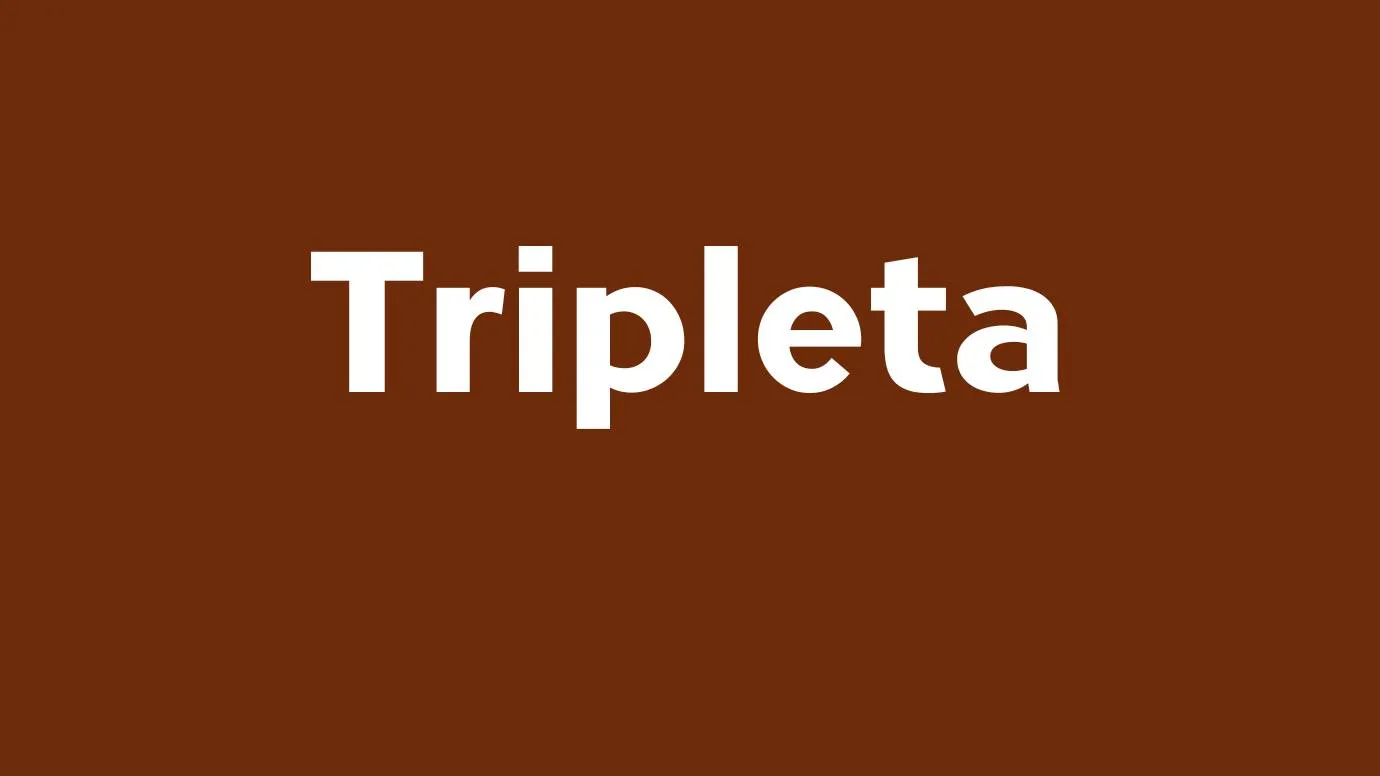
Tripleta Font Family is a very neat and clean Sans-Serif typeface. This amazing font was designed by Fernado Haro and manufactured by DeFahro. You can make high-readability projects by using this font.
Tripleta Font